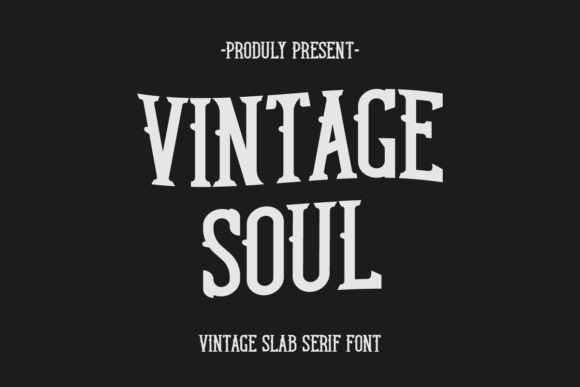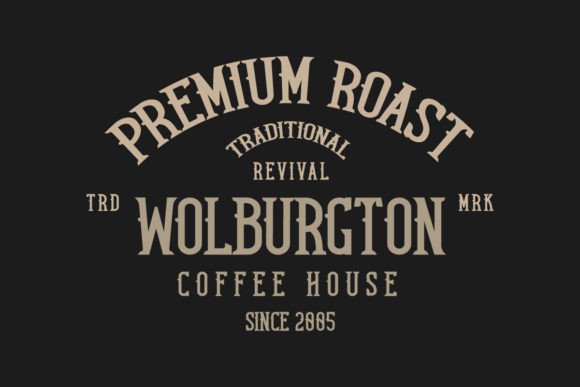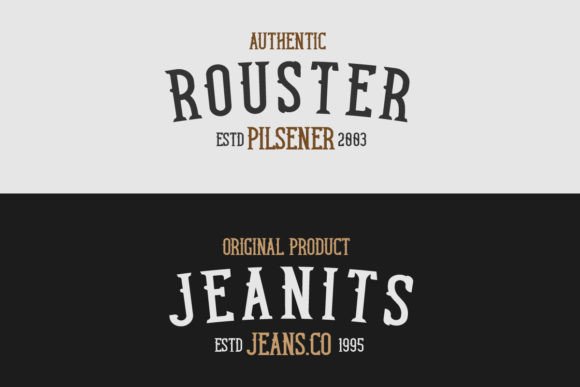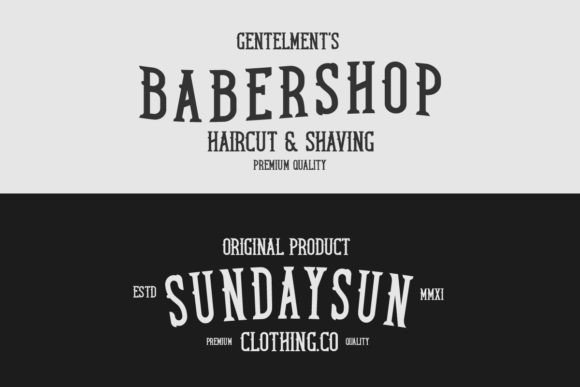
About Vintage Soul Font
Vintage Soul is a unique and stunning slab serif font with a vintage Western style. It is suitable for perfecting your creative projects such as t-shirts, labels, logos, web, branding, business, book covers, magazines, pamphlets, flyers, music albums, vinyl, and many other ideas.